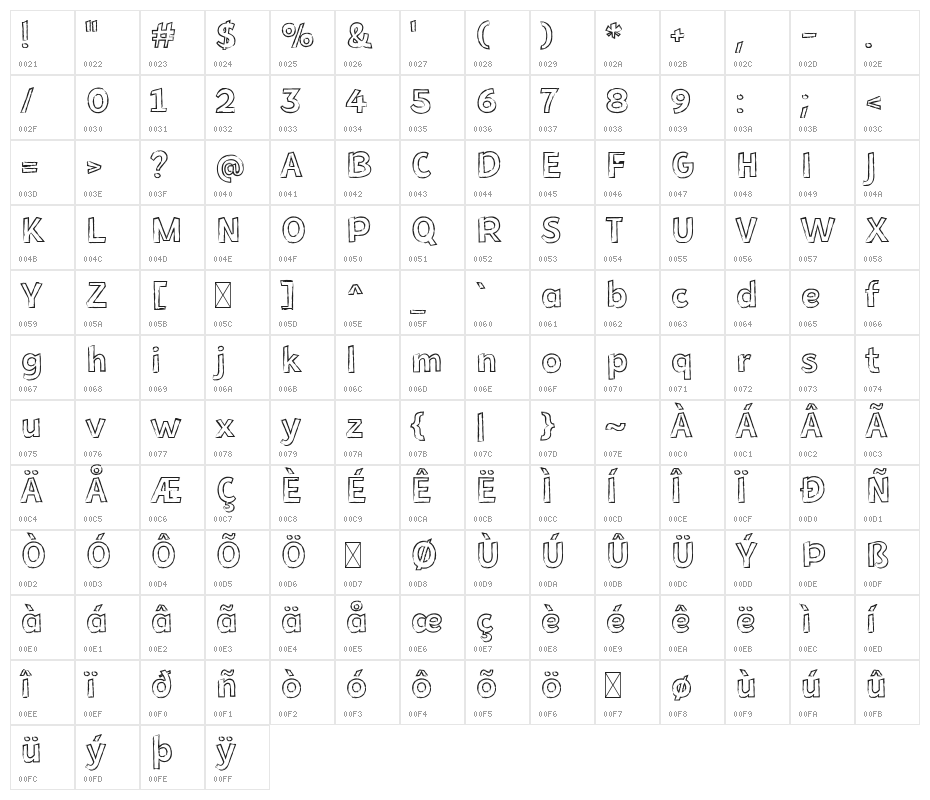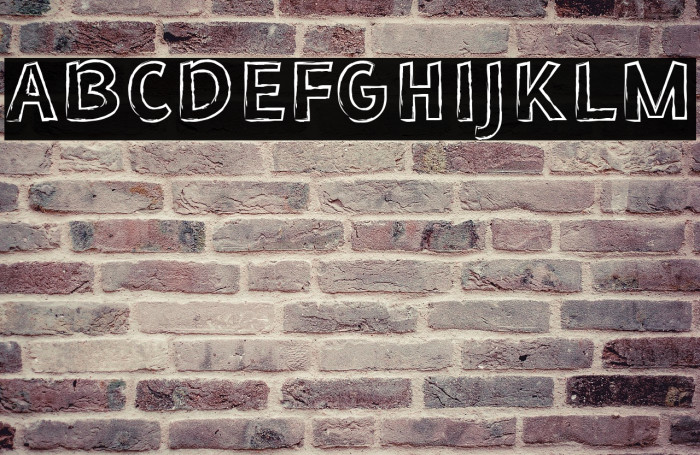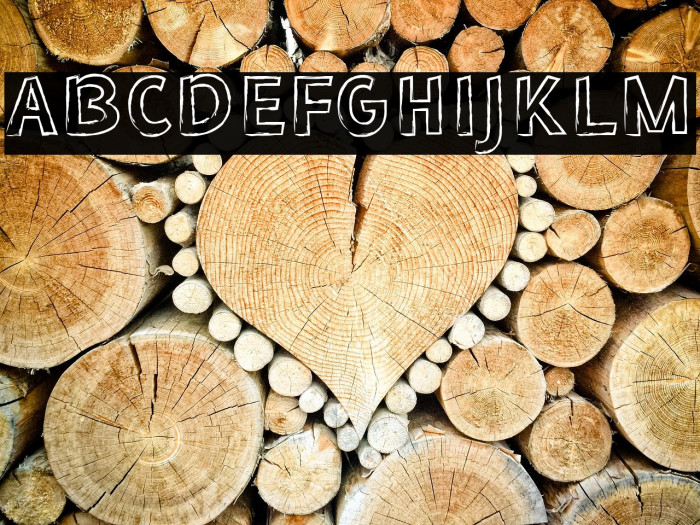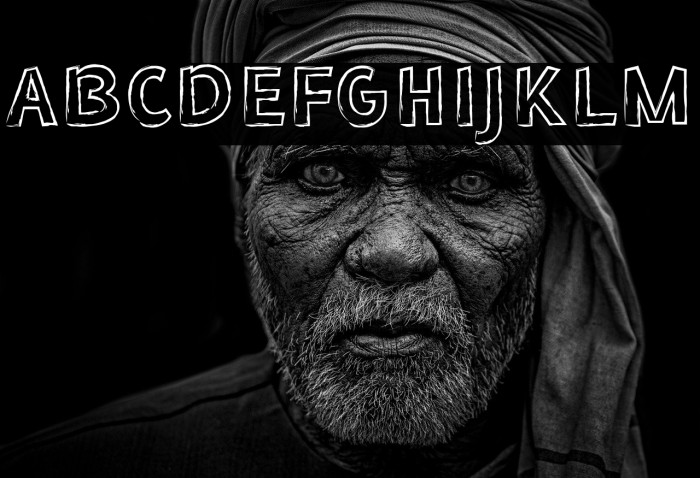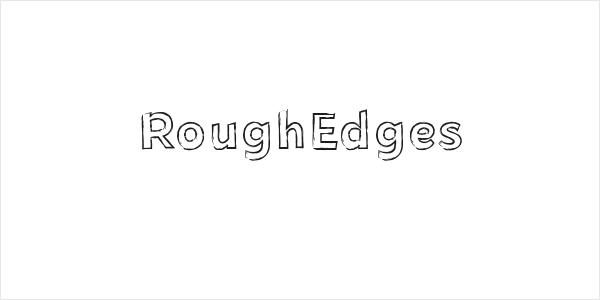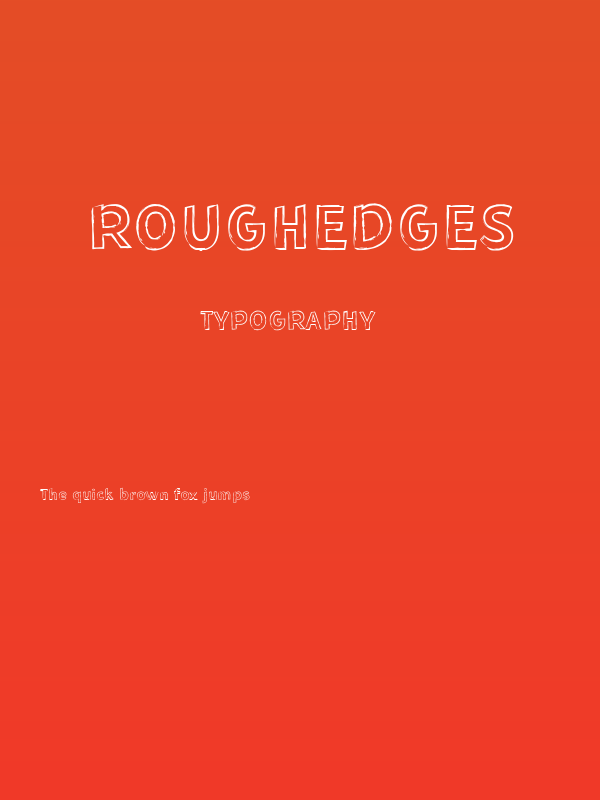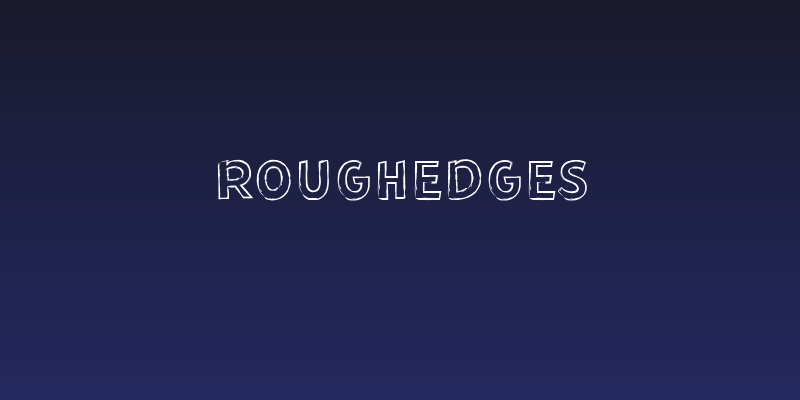
RoughEdges Font
RoughEdges Description
This font features a distinctive hand-drawn style with rough, textured edges that give it a unique, artistic appearance. The characters are bold and slightly irregular, adding to the handcrafted feel. Uppercase and lowercase letters maintain consistent proportions, while numbers and special characters follow the same design ethos. The font's playful and informal nature makes it suitable for creative projects where a casual and approachable tone is desired. Its rough edges and bold strokes make it stand out, ensuring readability while adding a touch of whimsy.